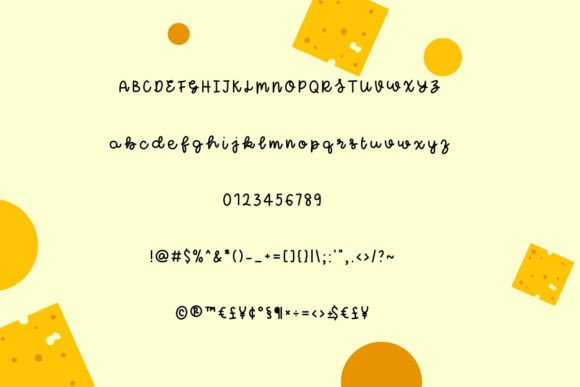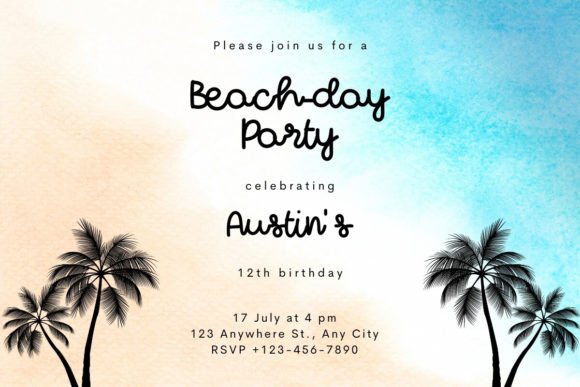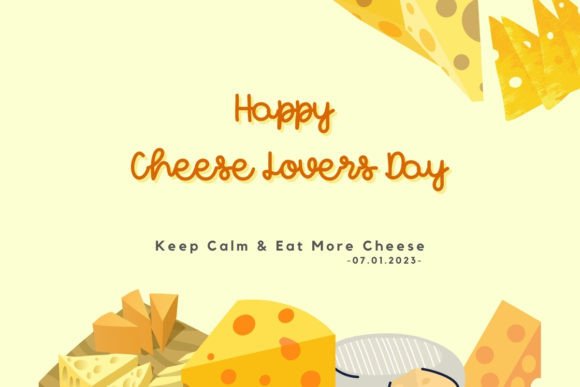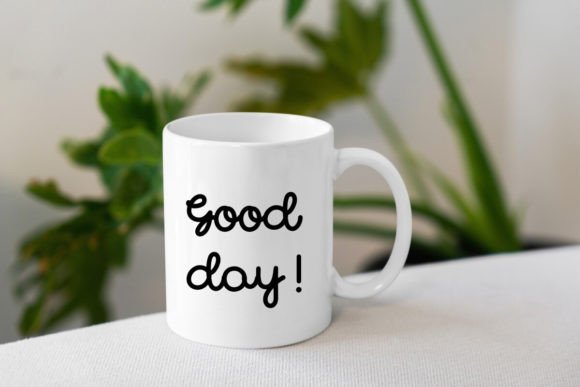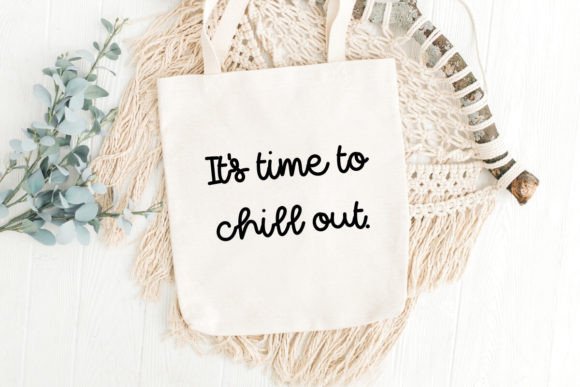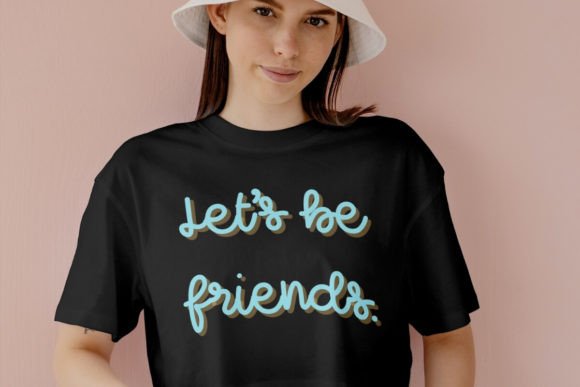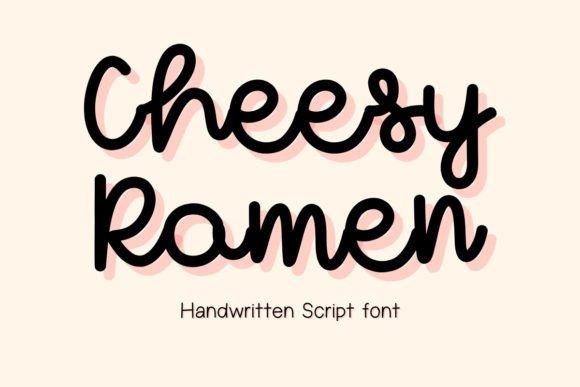
Introducing Cheesy Ramen Font: Add a Delicious Touch to Your Designs
Are you tired of using the same old fonts in your designs? Do you want to add a touch of personality and whimsy to your projects? Look no further than Cheesy Ramen Font, a handcrafted script font that’s sure to bring a smile to your face and a dash of excitement to your work.
The Flavor of Authenticity
Cheesy Ramen Font is a one-of-a-kind, hand-lettered script font that’s been carefully crafted to bring a sense of warmth and authenticity to your designs. Its unique, organic feel is reminiscent of handwritten signs and menus from your favorite restaurants, making it perfect for adding a touch of rustic charm to your projects.
Key Features of Cheesy Ramen Font
- Handcrafted with love: Each character has been meticulously designed to ensure a personal touch that’s hard to find in digital fonts.
- Intricate yet legible: The font’s intricate details and connections make it both visually appealing and easy to read, even at smaller sizes.
- Versatile: Cheesy Ramen Font is perfect for a wide range of projects, from custom invitations and captivating logos to unique merchandise and branding materials.
So, what can you create with Cheesy Ramen Font? The possibilities are endless! Here are a few ideas to get you started:
- Custom Invitations: Add a touch of elegance and sophistication to your wedding invitations, birthday party invites, or baby shower announcements.
- Captivating Logos: Create a memorable brand identity with a logo that’s both unique and eye-catching.
- Unique Merchandise: Design custom t-shirts, mugs, or tote bags that showcase your personality and style.
- Branding and Packaging: Elevate your brand’s visual identity with custom packaging, labels, or business cards that feature Cheesy Ramen Font.
Why Choose Cheesy Ramen Font?
In a world where digital fonts can feel cold and impersonal, Cheesy Ramen Font stands out as a breath of fresh air. Here are just a few reasons why designers and crafters are falling in love with this delicious font:
- Unique and exclusive: Cheesy Ramen Font is a one-of-a-kind design that’s sure to set you apart from the crowd.
- Easily legible: Despite its intricate details, Cheesy Ramen Font is easy to read, even at smaller sizes.
- Highly versatile: This font can be used for a wide range of projects, from digital designs to print materials.
Get Ready to Indulge Your Designs
Ready to add a touch of delicious flair to your designs? Look no further than Cheesy Ramen Font. With its authentic hand-lettered style, intricate yet legible characters, and versatile nature, this font is sure to become your new go-to for all your design needs.
- Characters: 260+ characters, including uppercase and lowercase letters, numbers, and punctuation marks
In conclusion, Cheesy Ramen Font is a handcrafted script font that’s sure to bring a touch of warmth, personality, and whimsy to your designs. With its unique and exclusive design, intricate yet legible characters, and versatile nature, this font is perfect for designers and crafters who want to add a little something extra to their projects. So why wait? Download Cheesy Ramen Font today and start creating designs that are truly one-of-a-kind!